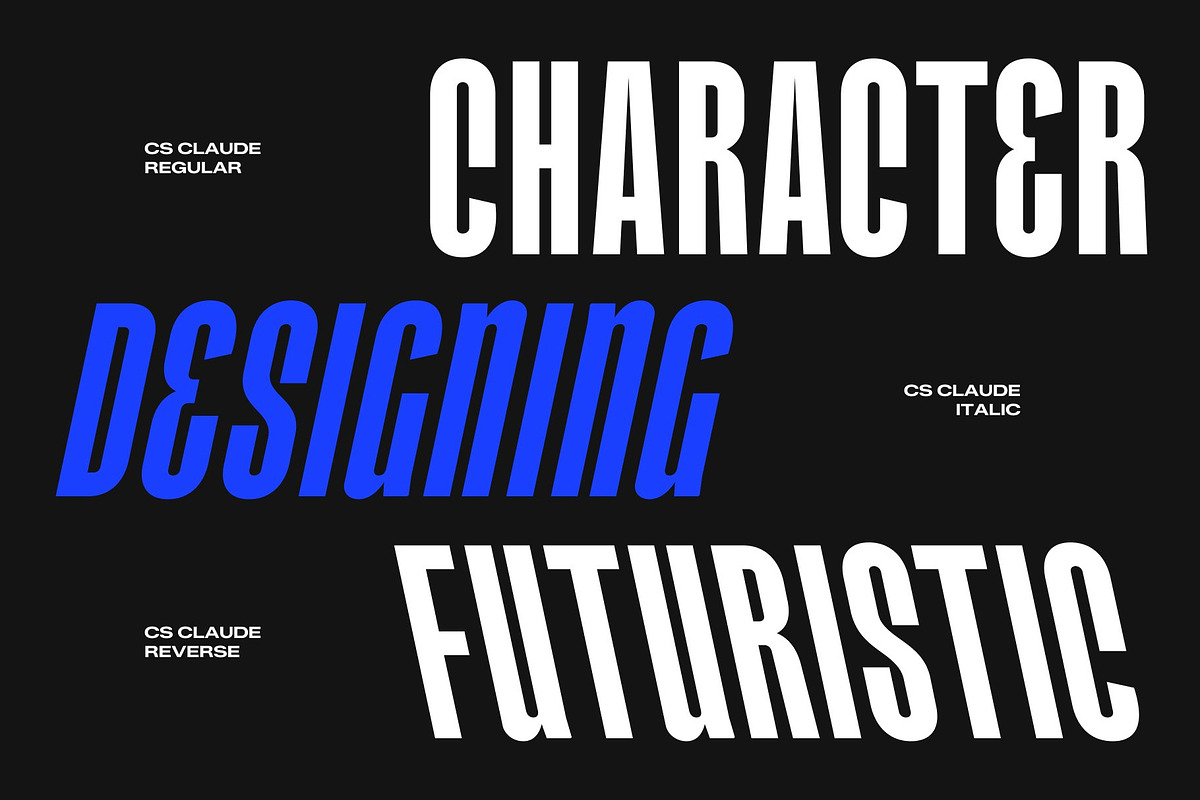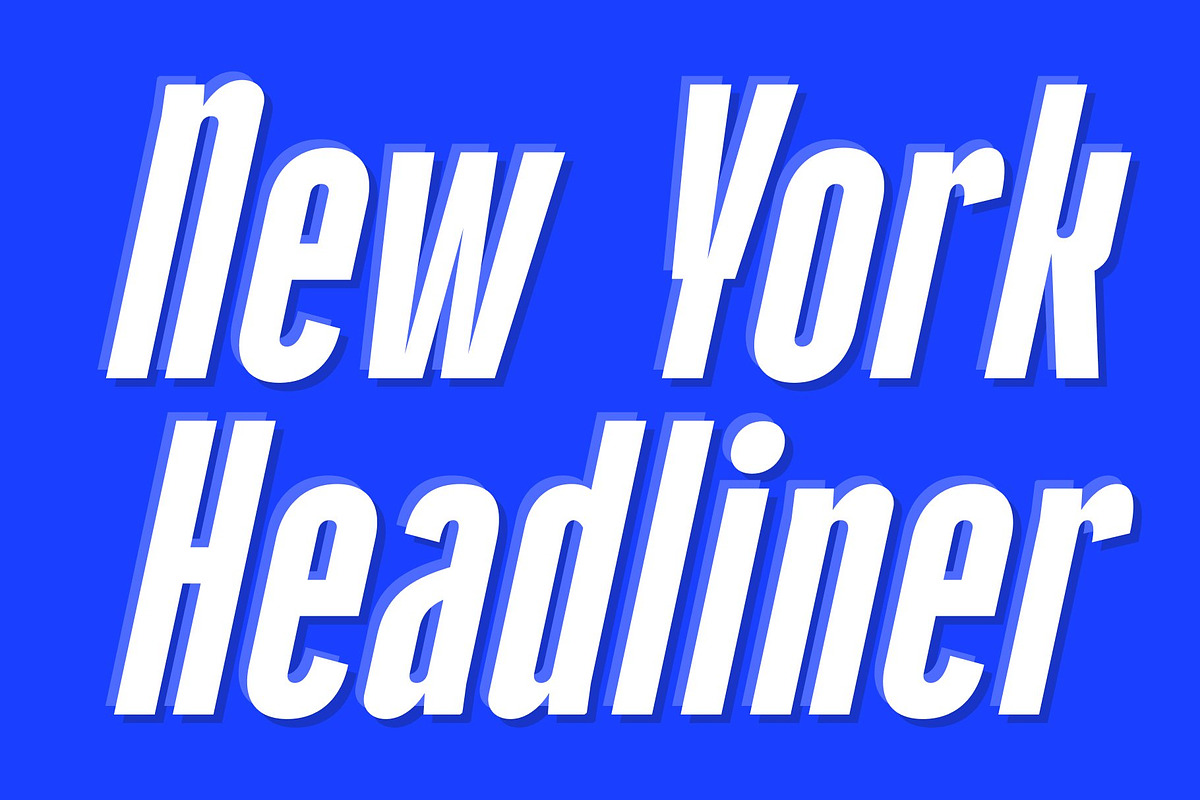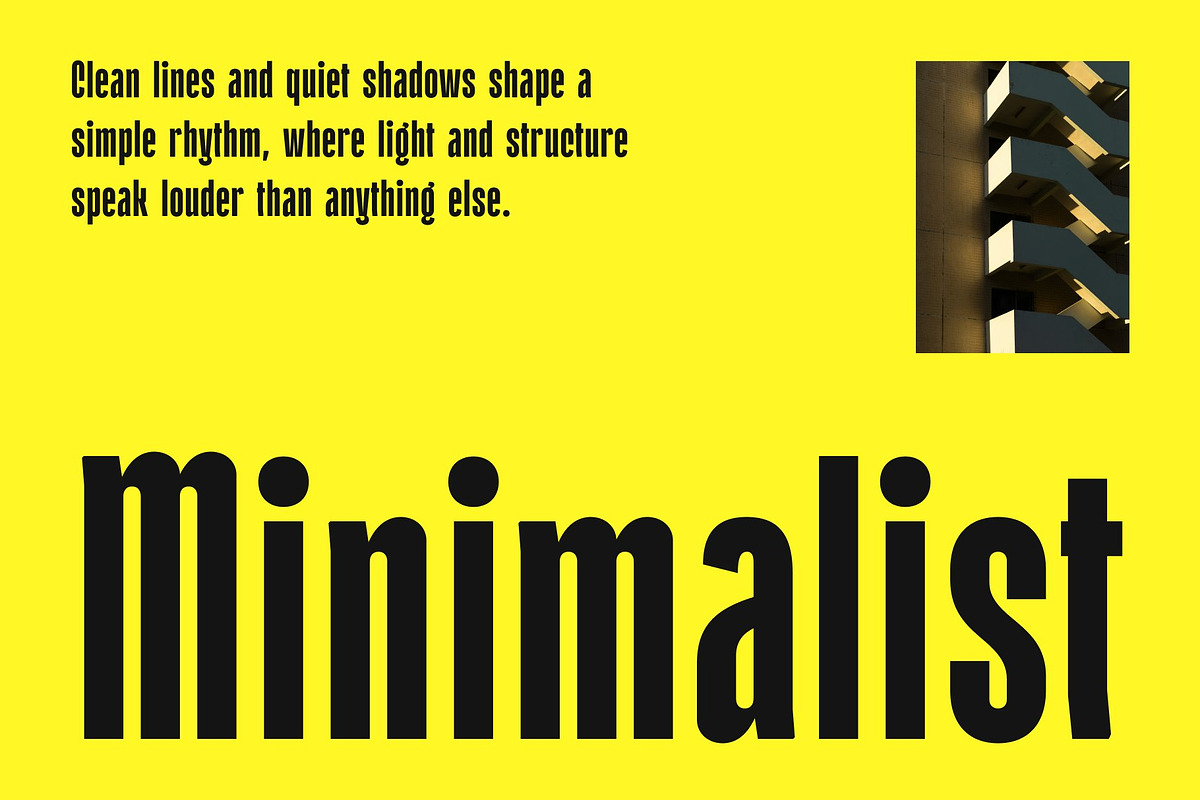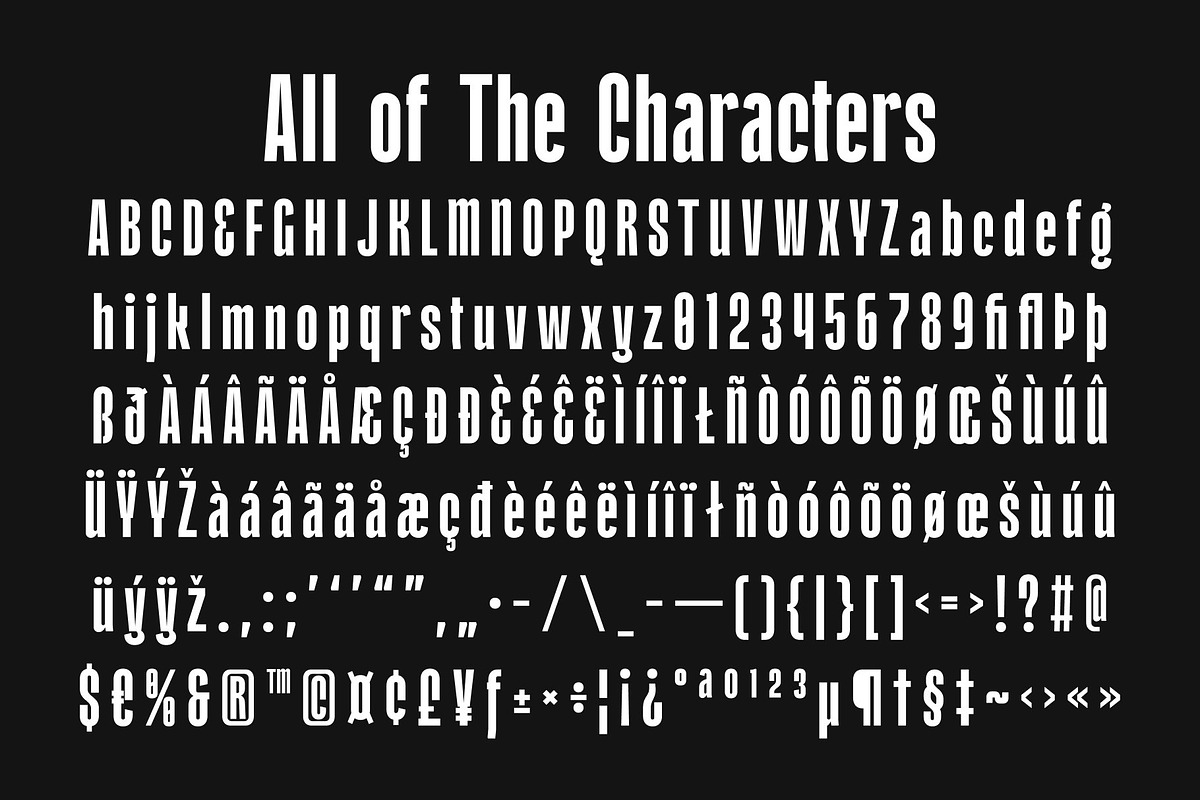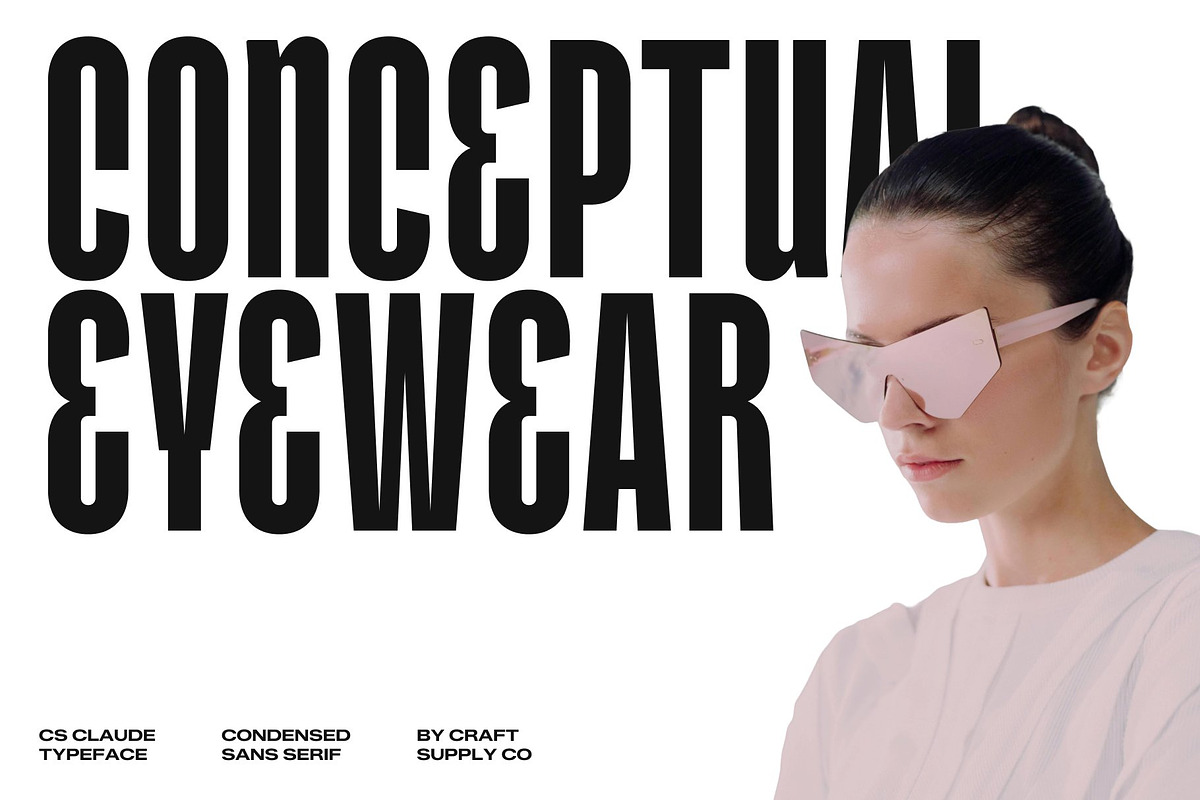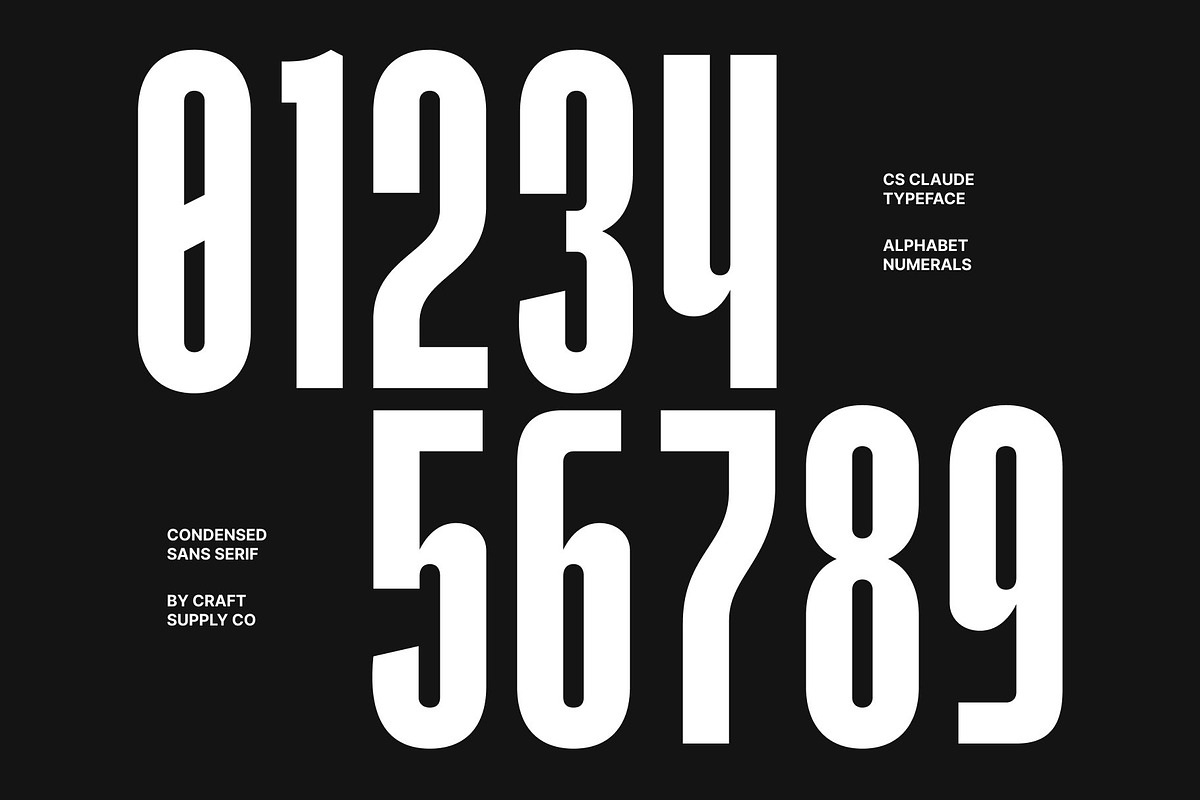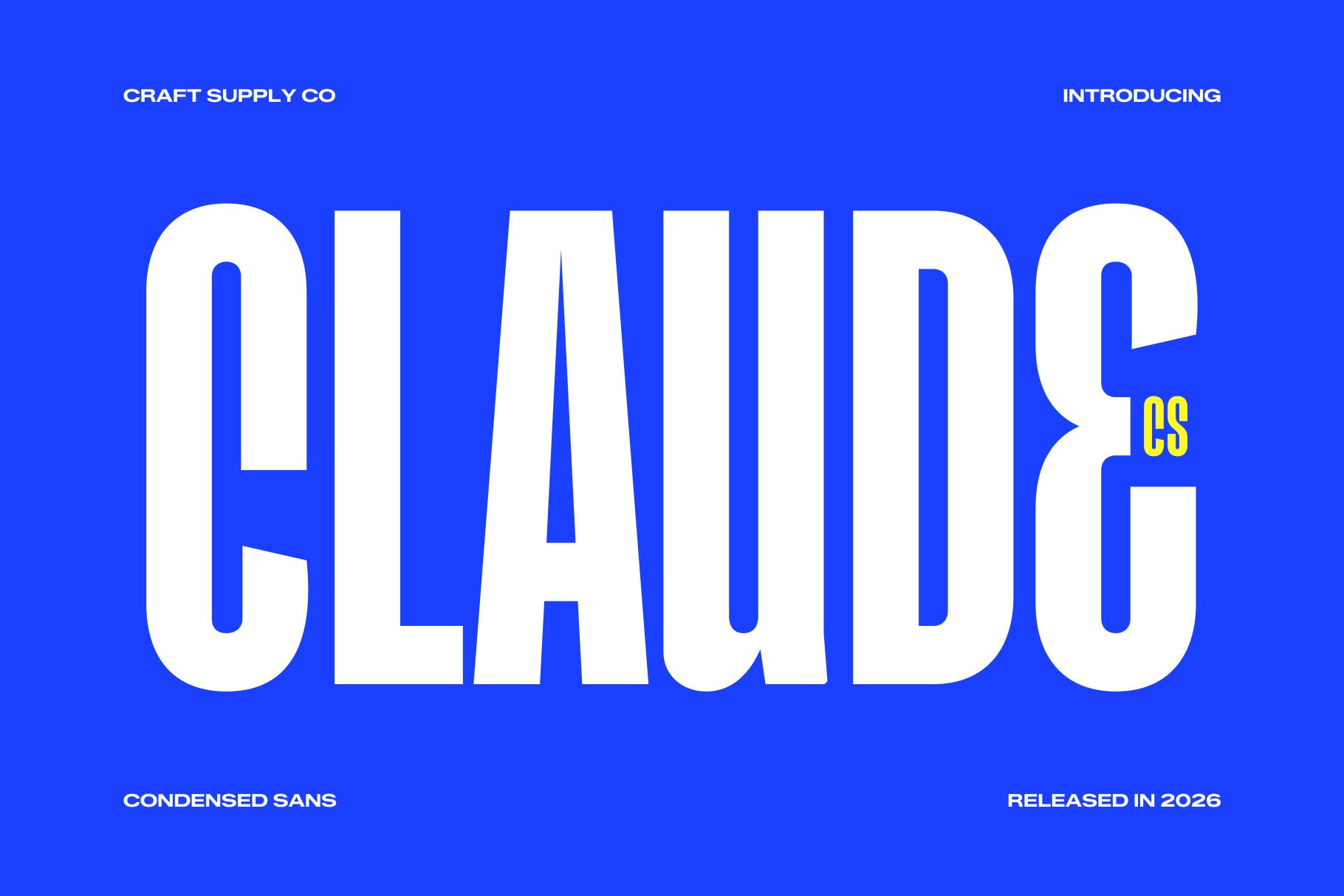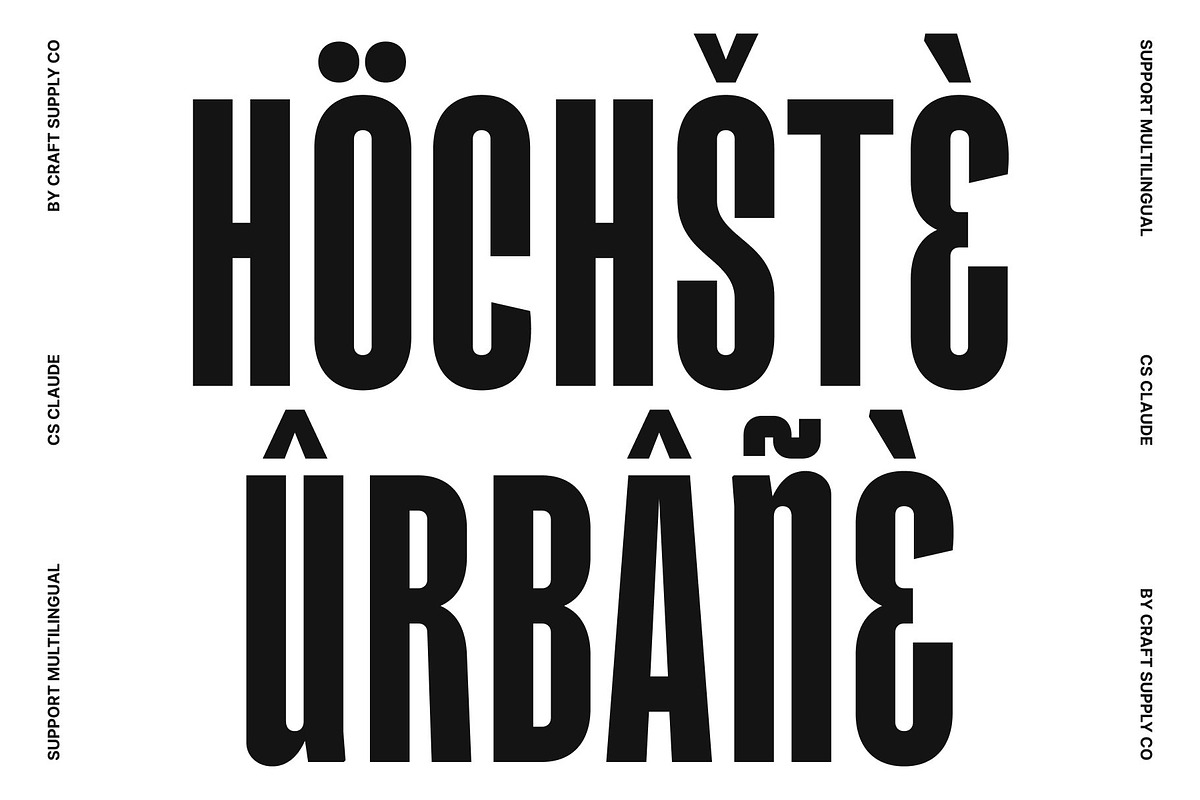
CS Claude – Condensed Font
CS Claude – Condensed Sans Serif with Confident Impact
Condensed Sans Serif Built for Efficiency This is a compact and modern condensed sans serif font crafted to deliver strong visual impact while saving space. Its narrow proportions allow more words to fit seamlessly into tight layouts without sacrificing clarity. Every letter is designed to stay sharp and readable, making it a dependable choice for high-visibility typography.
Bold Presence with Clean Structure Despite its compact width, this font carries a bold and confident personality. The clean structure and balanced proportions create a powerful presence that stands out in headlines and titles. Its strong vertical rhythm gives the font a modern tone that feels assertive yet approachable.
Clarity and Readability in Every Size Designed with legibility in mind, this font maintains excellent readability across various sizes and applications. From large display settings to smaller subheadings, this font remains crisp, organized, and visually pleasing. The thoughtful spacing and simplified forms ensure smooth reading experiences across print and digital media.
Perfect for Headlines, Posters, and Branding This font shines in projects that demand impact and efficiency. It works beautifully for posters, branding, logos, packaging, and editorial layouts that need to make a strong statement in limited space. Whether creating bold marketing materials or sleek modern identities, this font balances readability with boldness for truly versatile design results.
CS Claude Regular
CS Claude Italic
CS Claude Reverse Italic